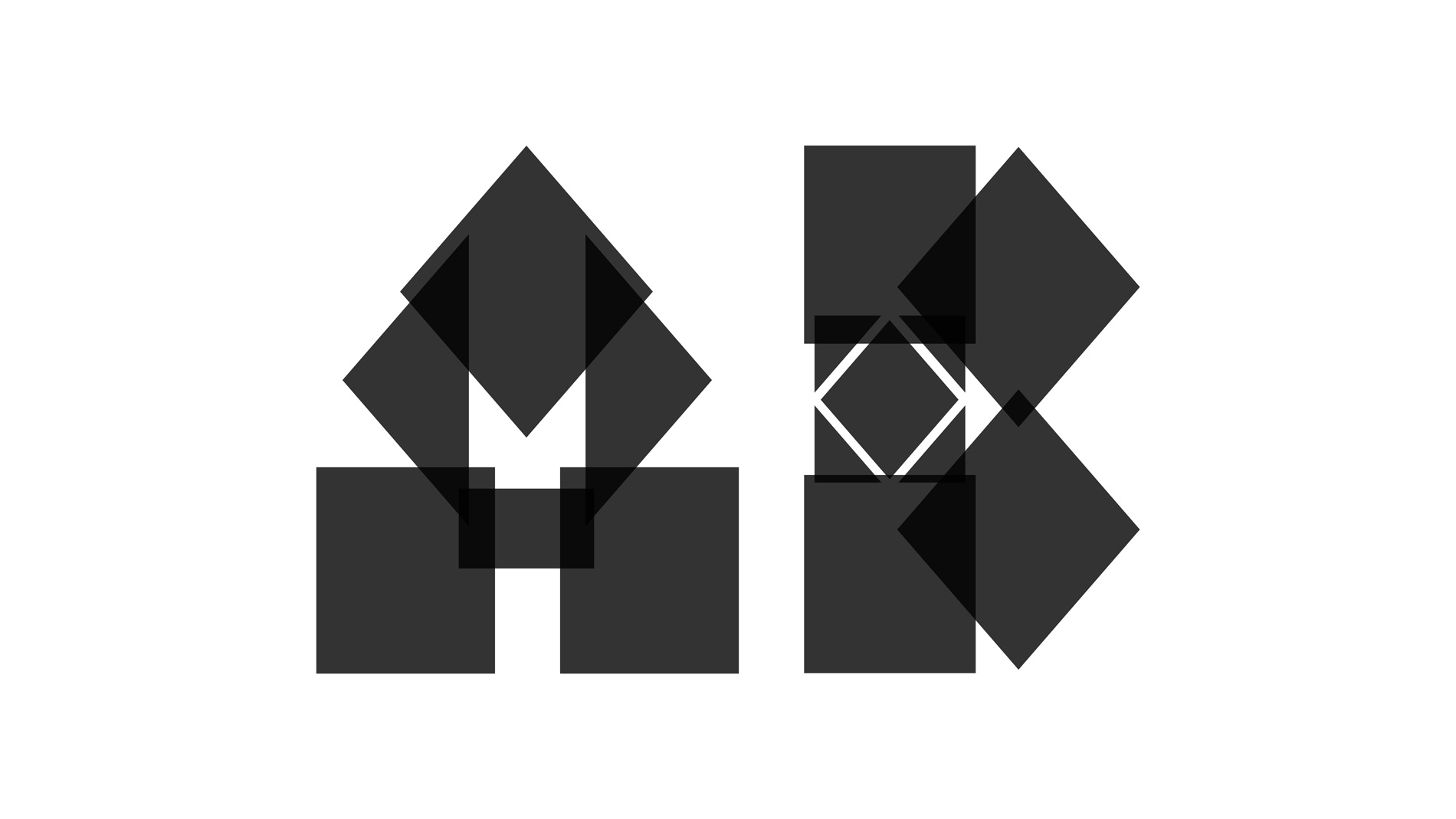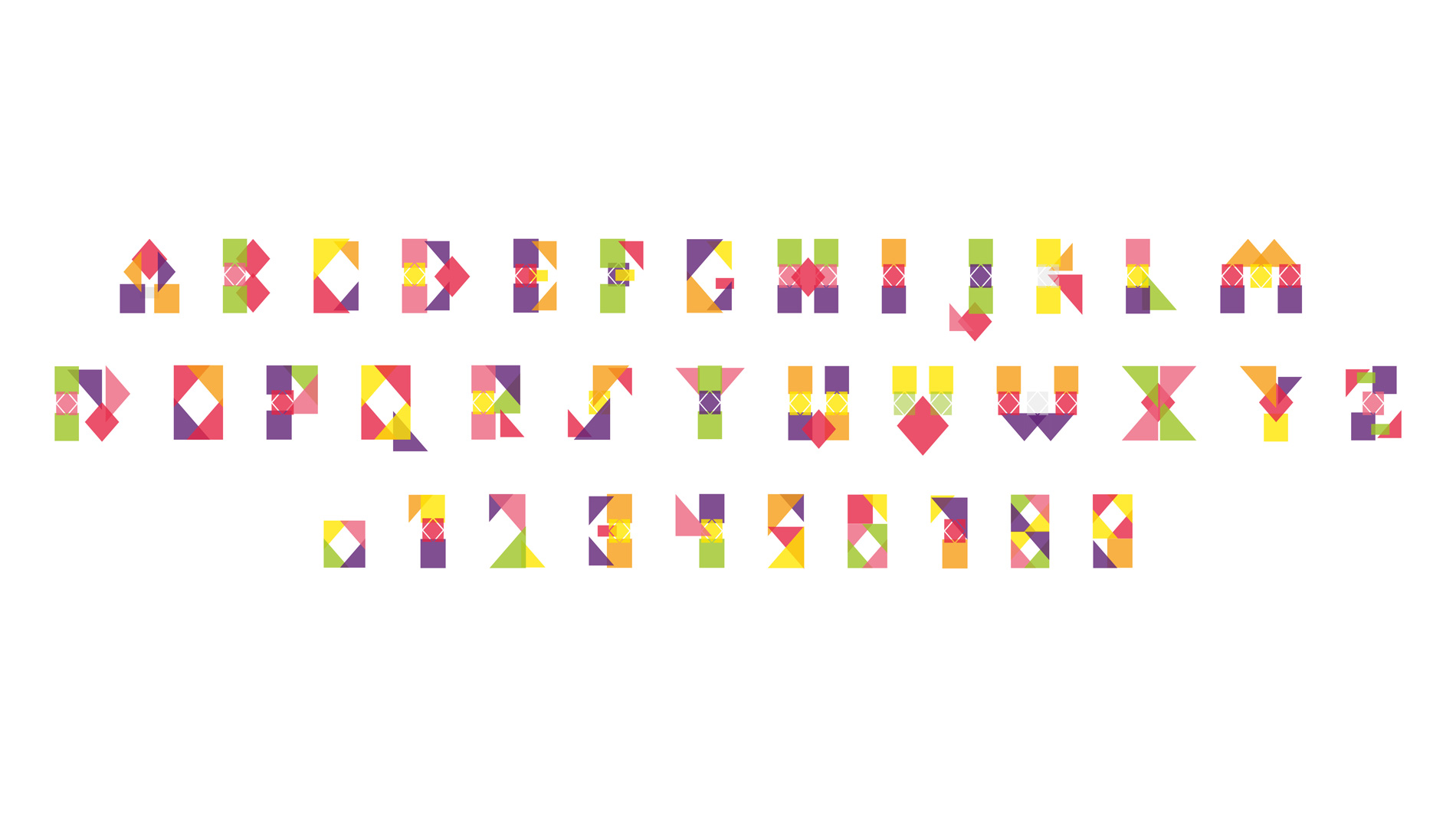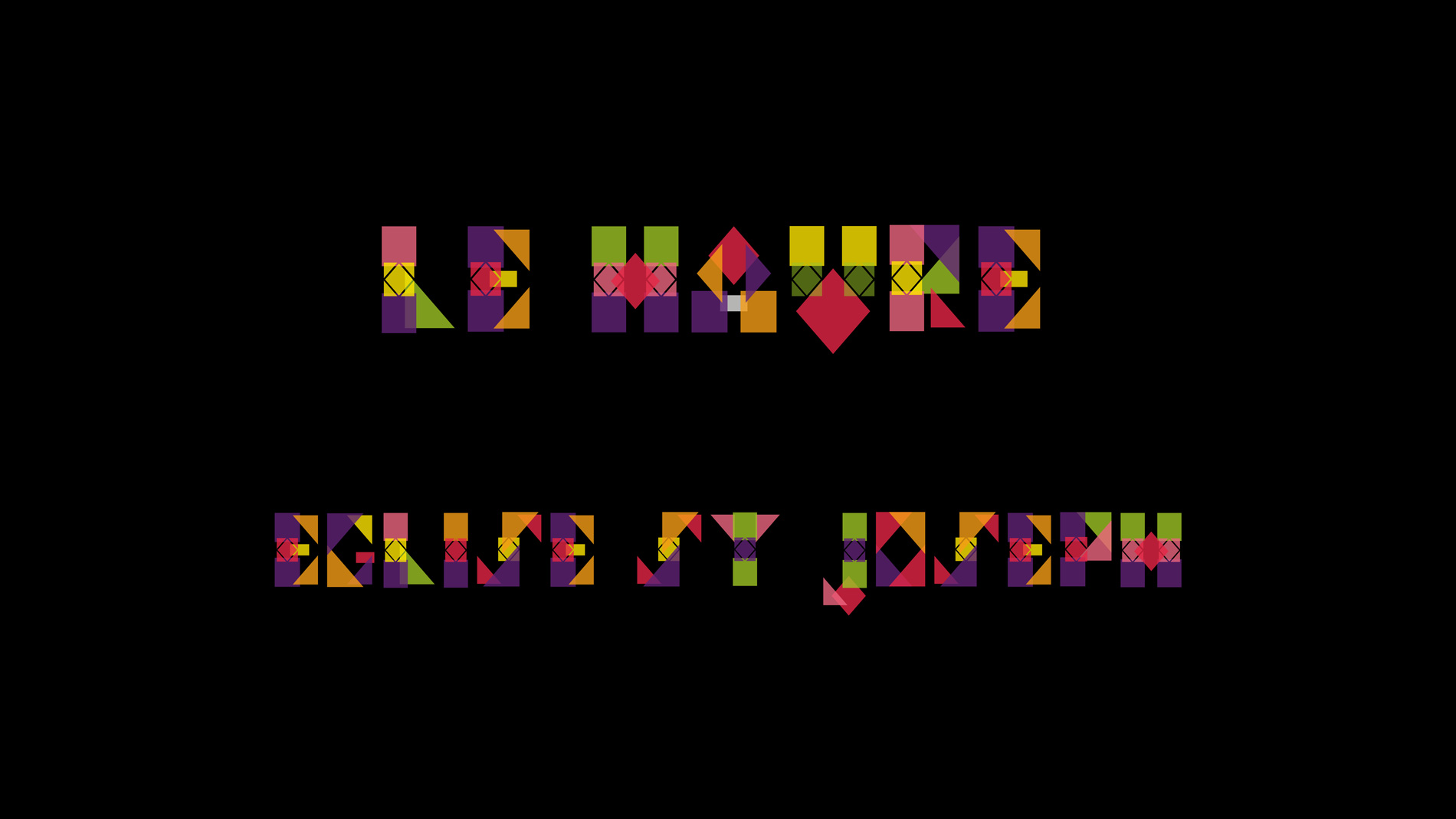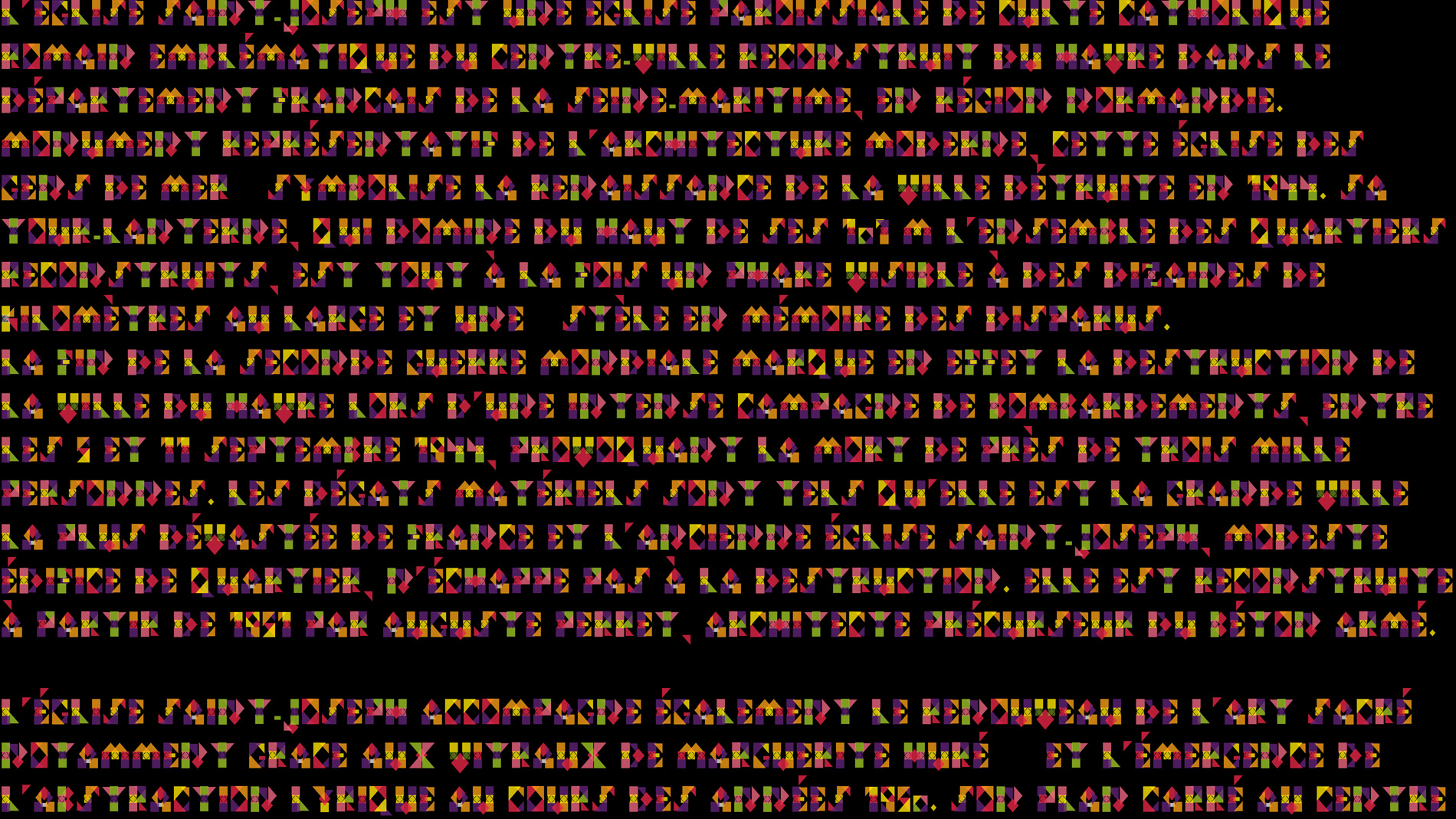
Le Havre - The church of Saint Joseph
Using the shapes and colors inside the church in this city, I created unique letters that are geometric and vivid.